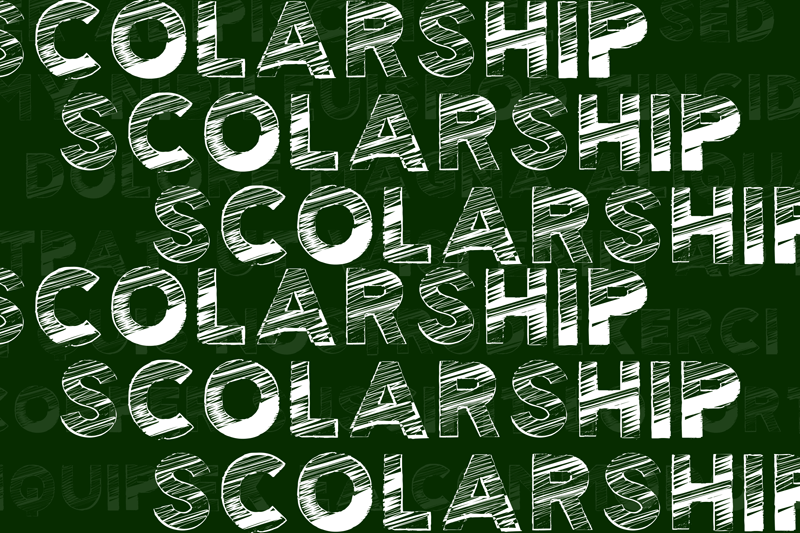
Scolarship
Scolarship Font
Font bursting with energy, quick strokes and sharp edges. Ideal for loud messages. Very interesting to use for logos, name tags, handwritten quotes, product packaging, merchandise, social media & greeting cards .Also, ideal to make t-shirts design and other clothing products.